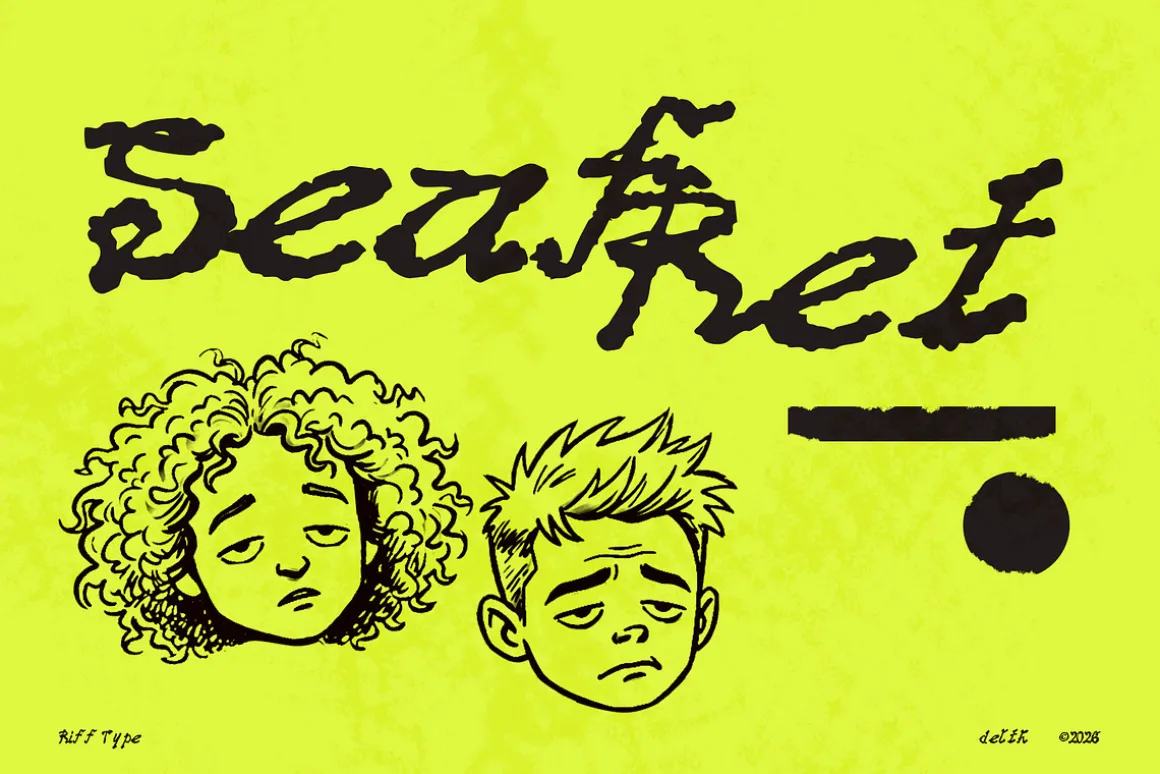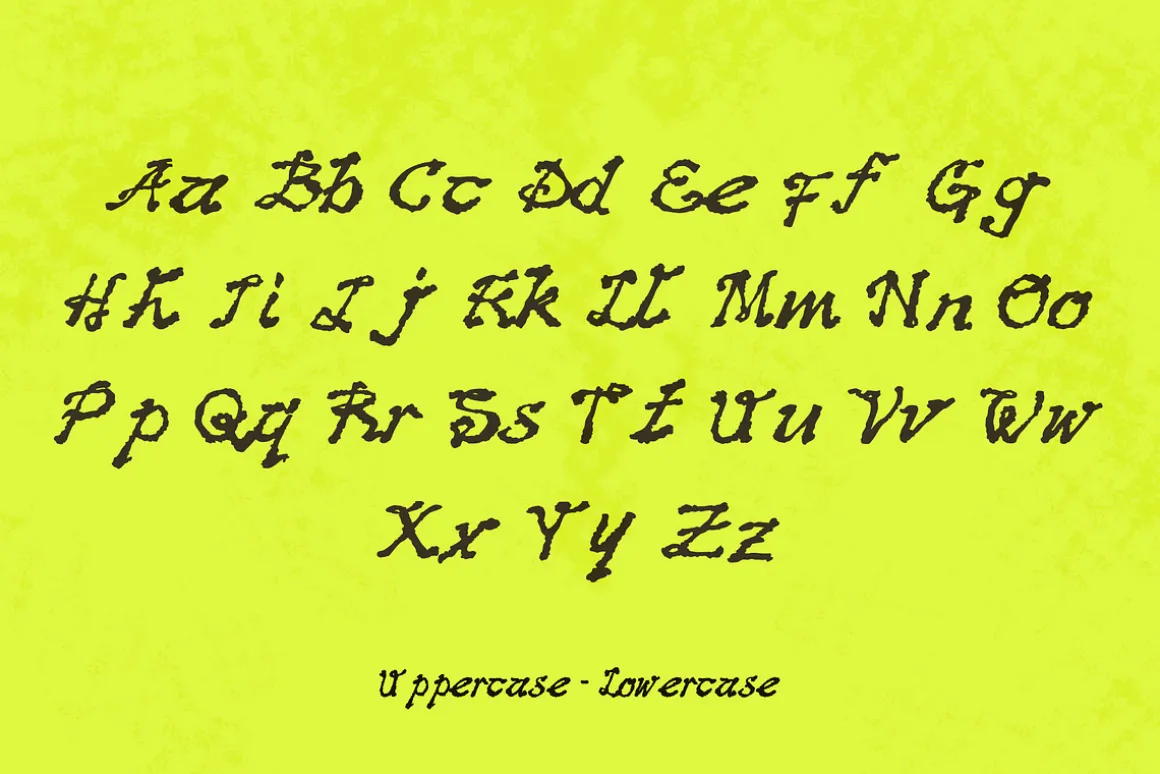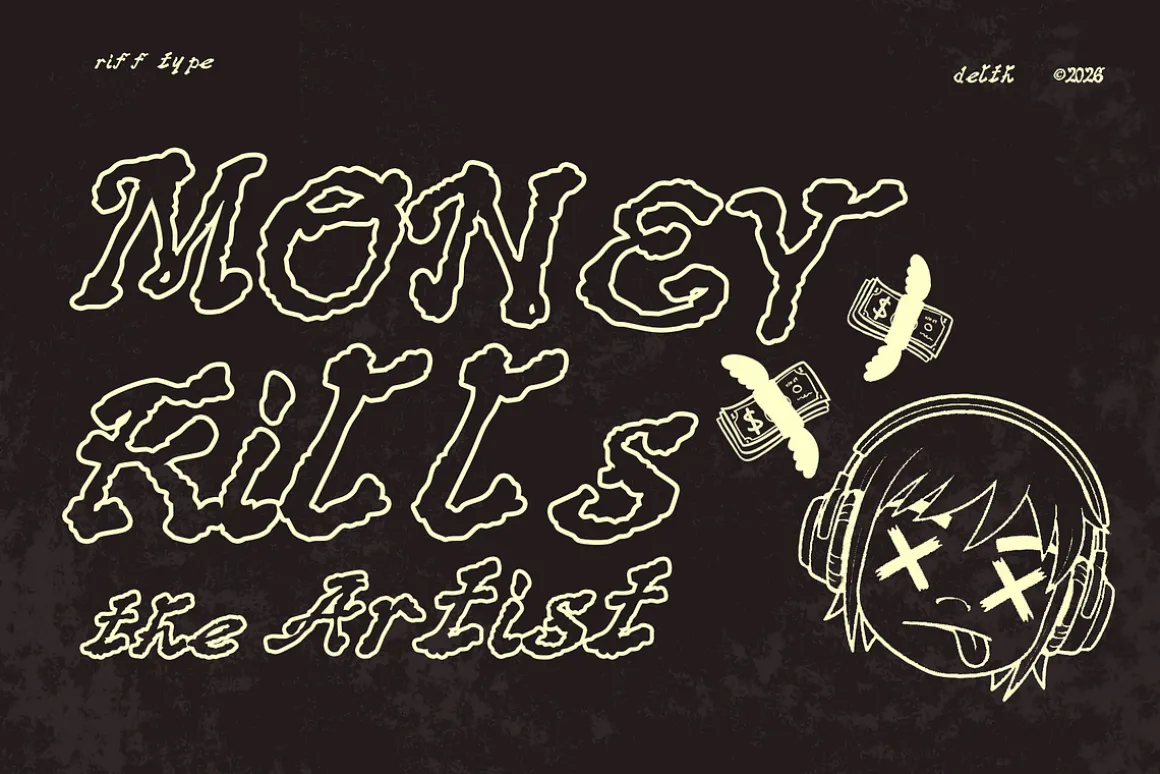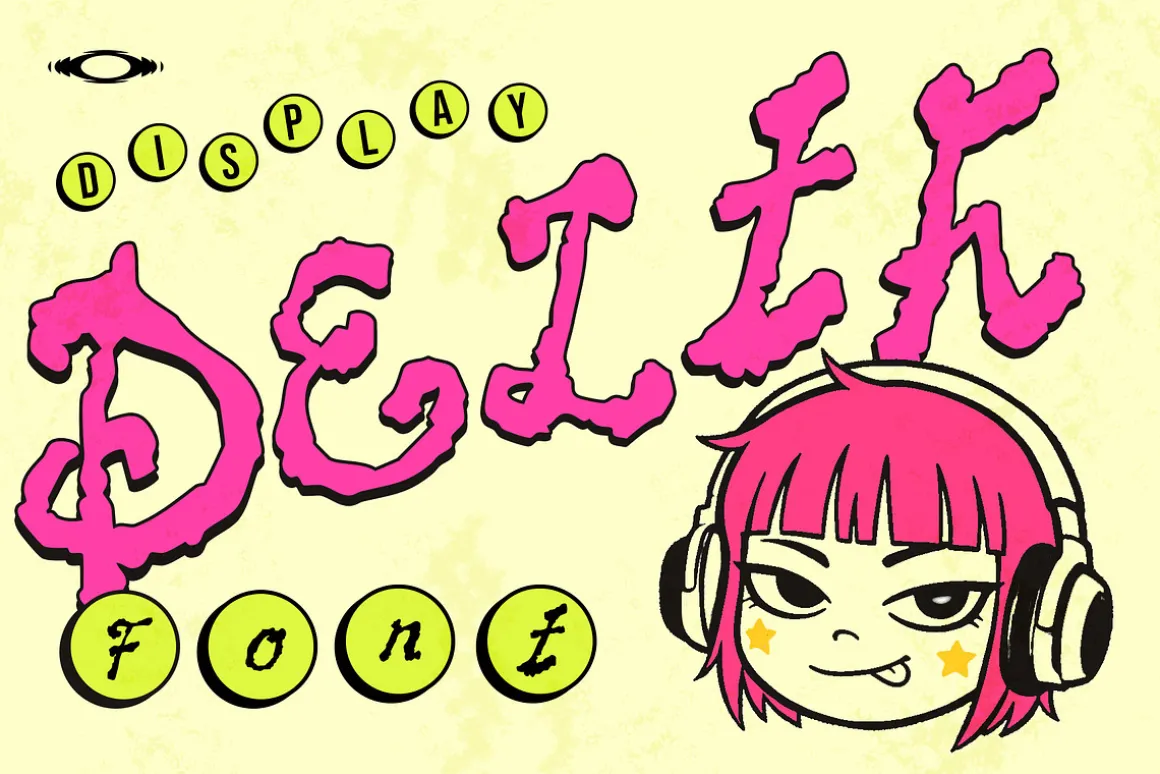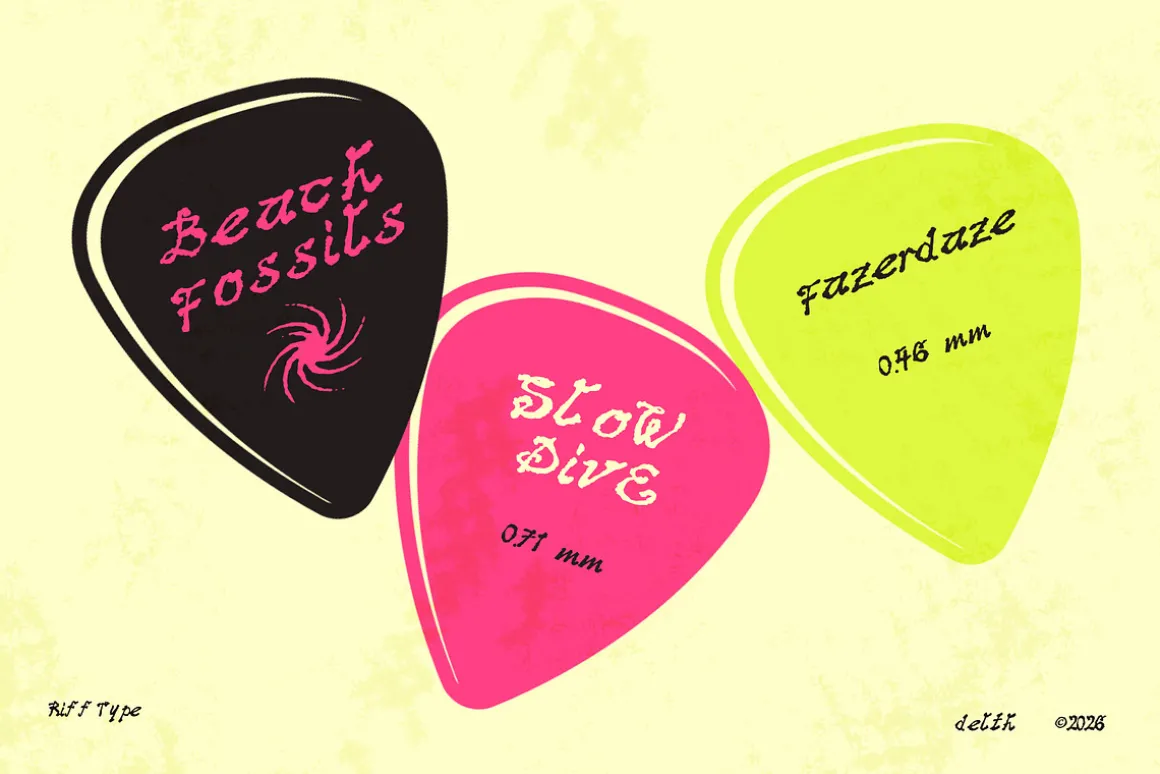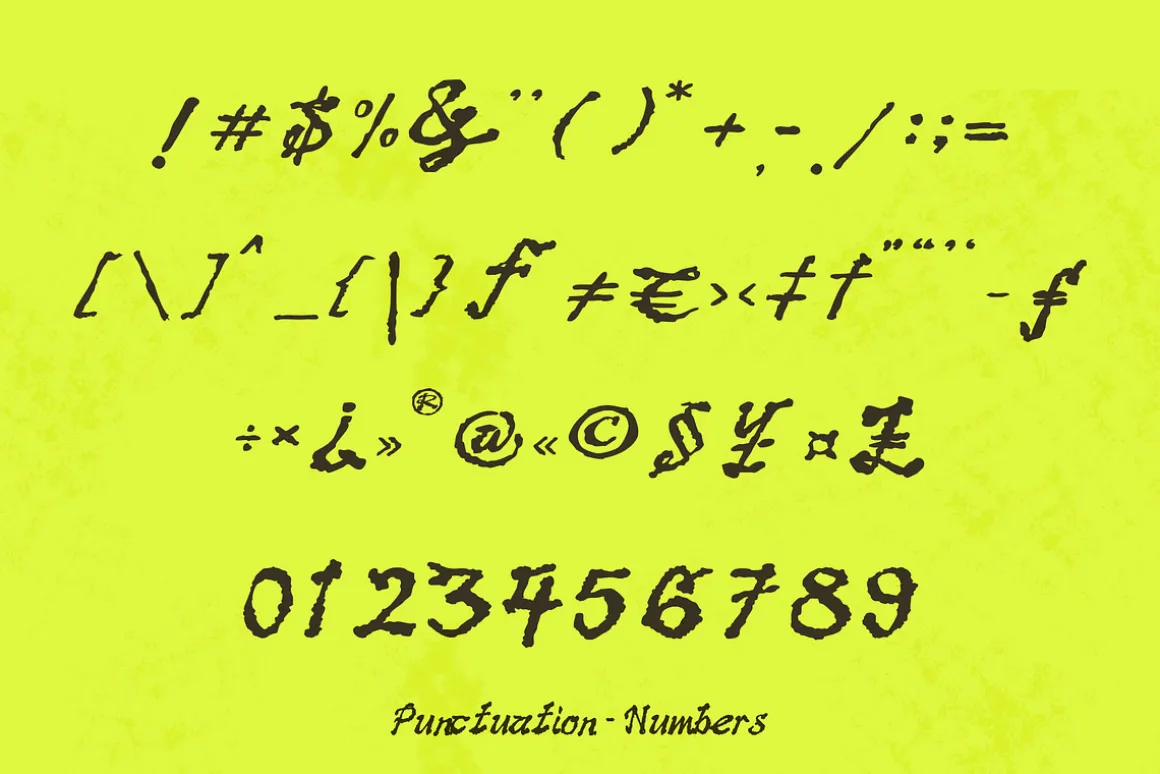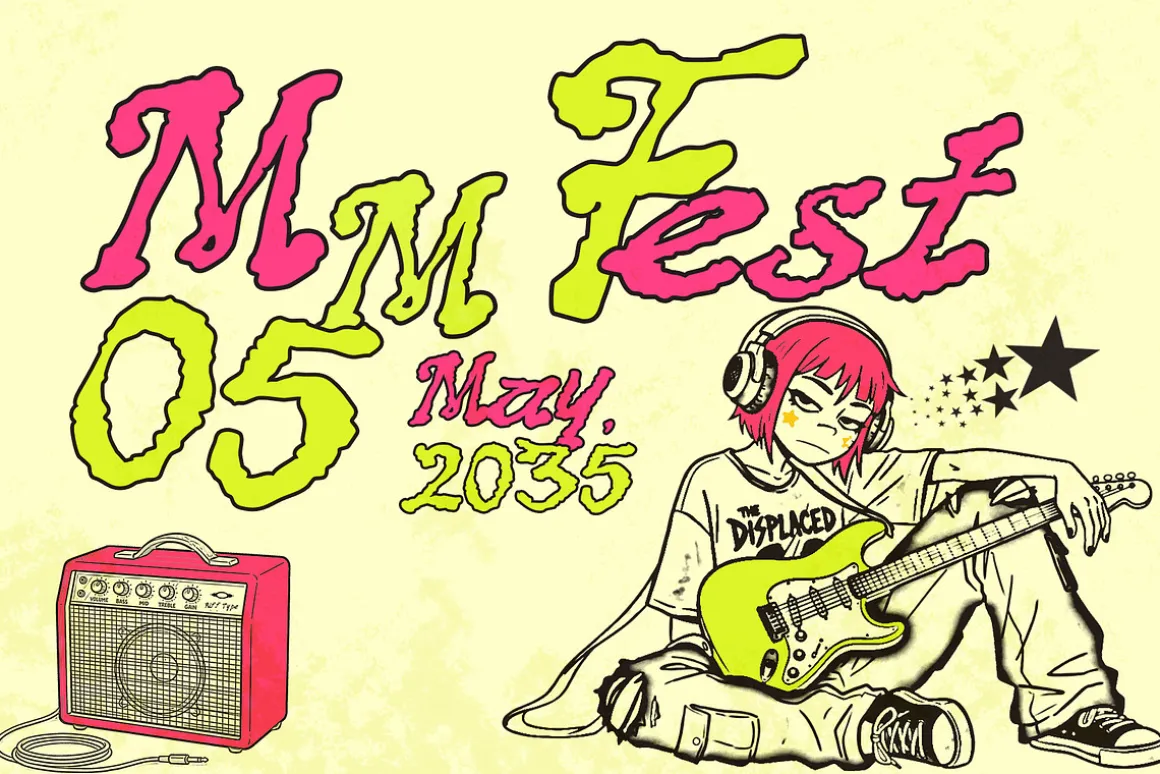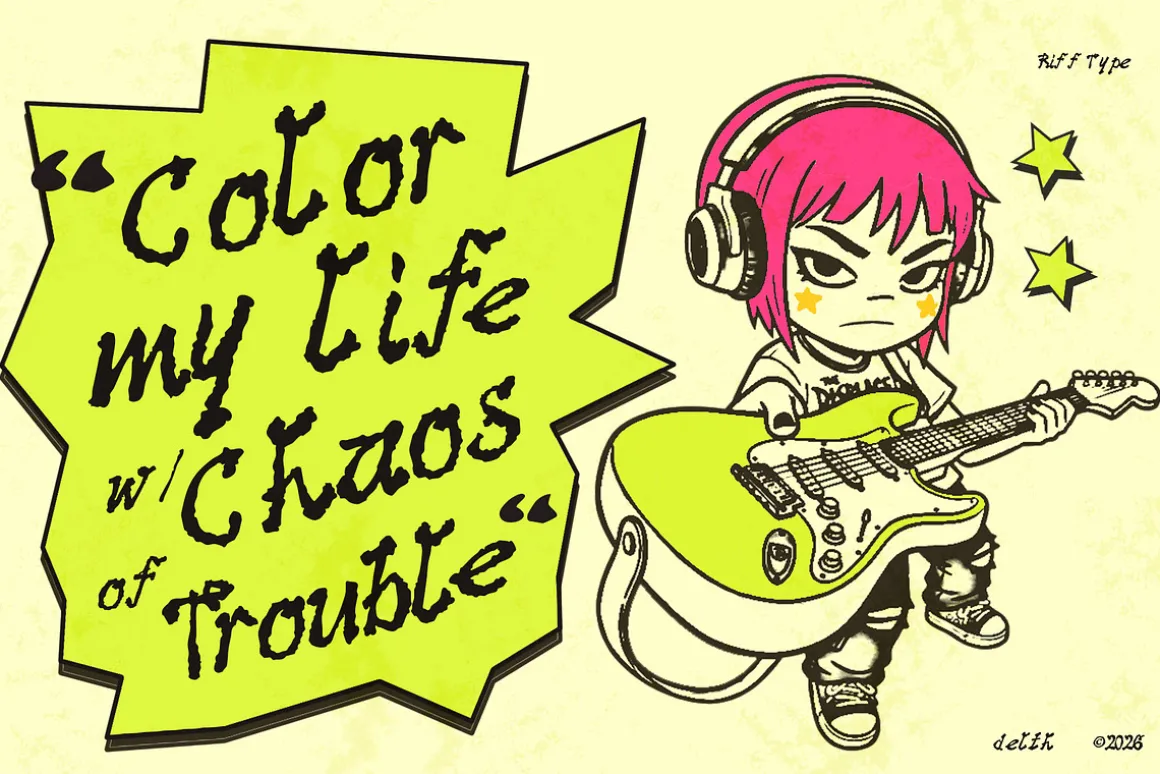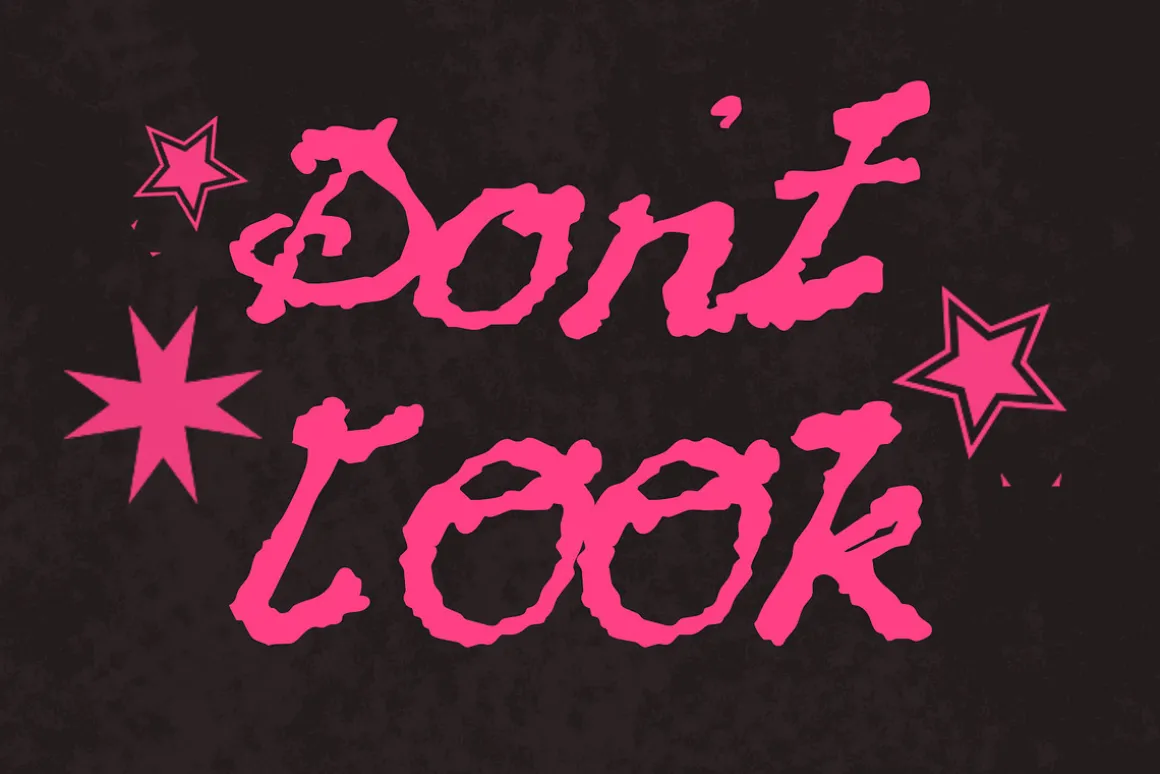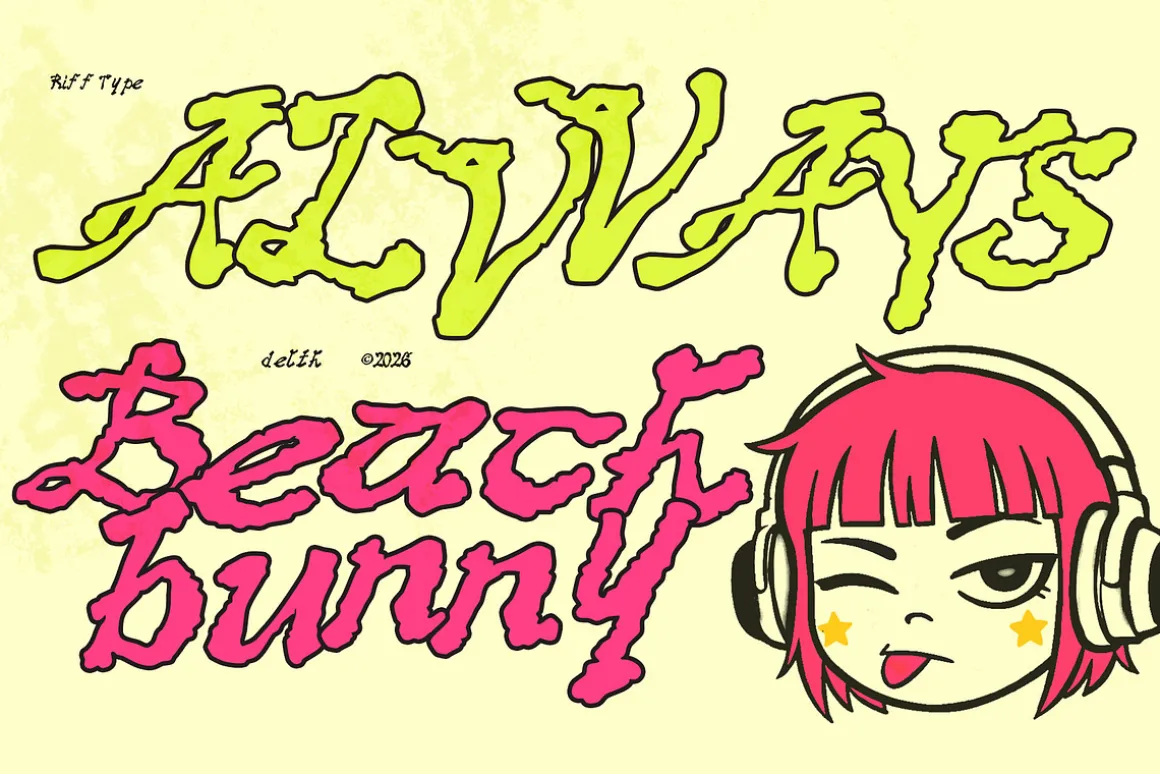
Inspired by alternative zine culture, and the resurgence of lo-fi bedroom pop, this display font features classic structural forms wrapped in a heavily textured, screen-printed bitmap edge.
It’s edgy, atmospheric, and highly aesthetic—perfect for creators who want their typography to feel as raw and honest as an indie anthem.